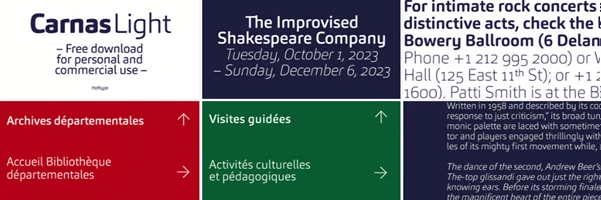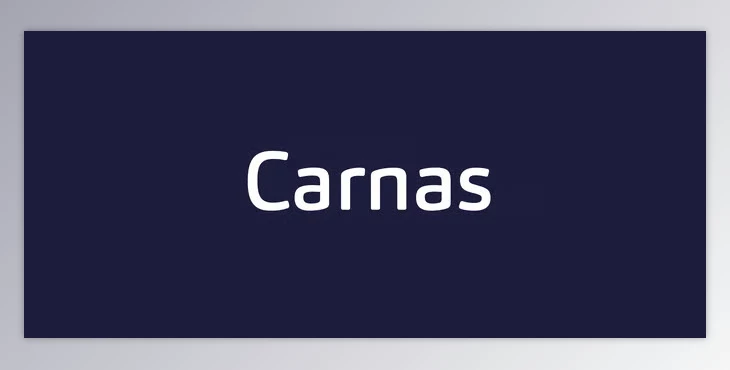
The Carnas Font Family is a monoline modern sans-serif typeface characterized by its thin, light design, informal yet sturdy, and readable enough for headlines or signs.
Carnas has 16 fonts in the family and is designed for ambitious typography projects. This OpenType font file family has ample language coverage. Each weight in the collection has many features, including ligature, superior characters, and numeral styles, including proportional lining, tabular lining, proportional old style numbers, and lining old style numbers, as well as relevant currency symbols for convenience. This collection has fractions, scientific numbers, and arrows. Elegant and multifunctional, the Carnas Font Family collection is the one to choose if a designer wants the perfect font collection without wasting hours searching for the right one.